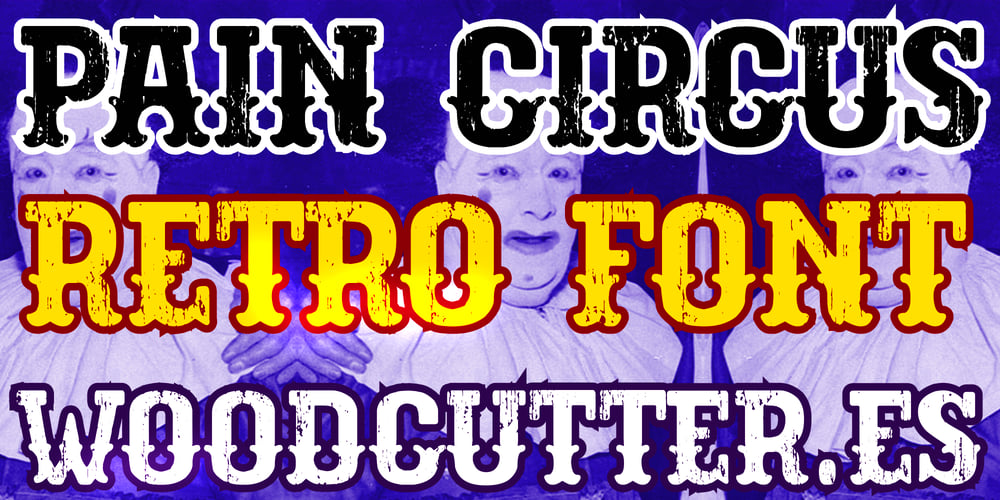
Pain Circus Font Family was designed by Jordi Manero and published by Woodcutter. Pain Circus contains 1 styles and family package options. “Pain Circus” is a font that combines a worn-out look with a retro circus aesthetic. With its distressed letters, it evokes the nostalgic and decaying atmosphere of old circuses, bringing a vintage and melancholic touch to any project. This typeface is perfect for posters, invitations, and designs that aim to capture the spirit of past performances, offering a unique blend of elegance and decay that is visually striking. “Pain Circus” brings the magic and mystery of yesteryear’s circuses to life, adding character and authenticity to your creations.